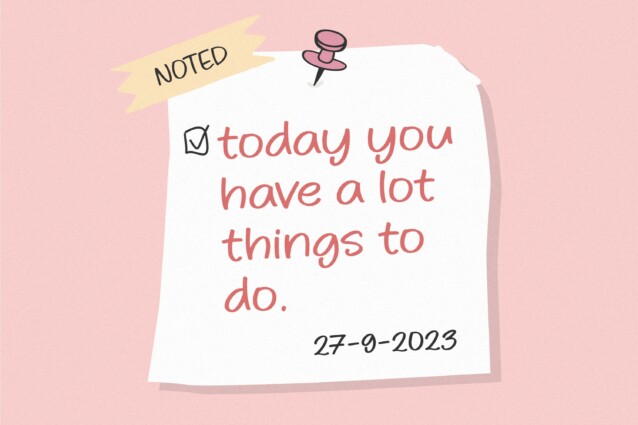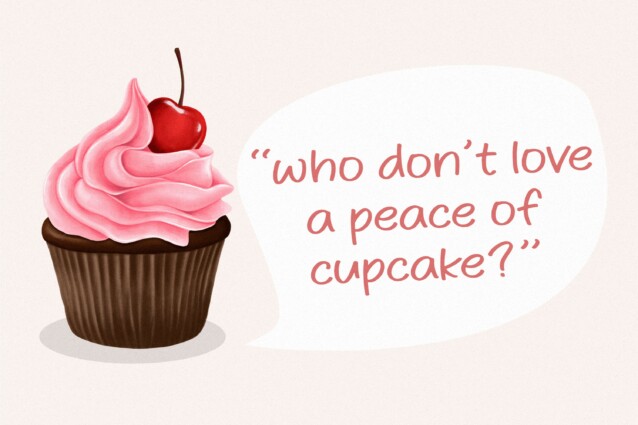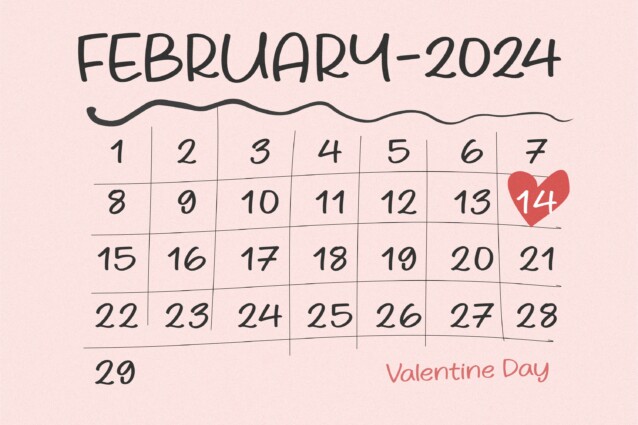
Pinksoda Display Font
Pinksoda Display Font is a notable and quotable font. Introducing our custom font creation service that offers you the opportunity to bring your favorite quotes and notes to life, in a unique way. At our custom font service, we specialize in creating handcrafted fonts that perfectly capture the essence of your personal style.
We create handwritten fonts that convey the perfect tone and reflect your individuality. Whether it’s a favorite quote, a special note, or a cherished message, we work tirelessly to create custom fonts that capture the true essence of your sentiment.
Our custom handwritten fonts are ideal for creating personalized stationery, invitations, greeting cards, posters and social media graphics. Whatever the occasion, our fonts are the perfect way to add a touch of charm and personality to your designs.